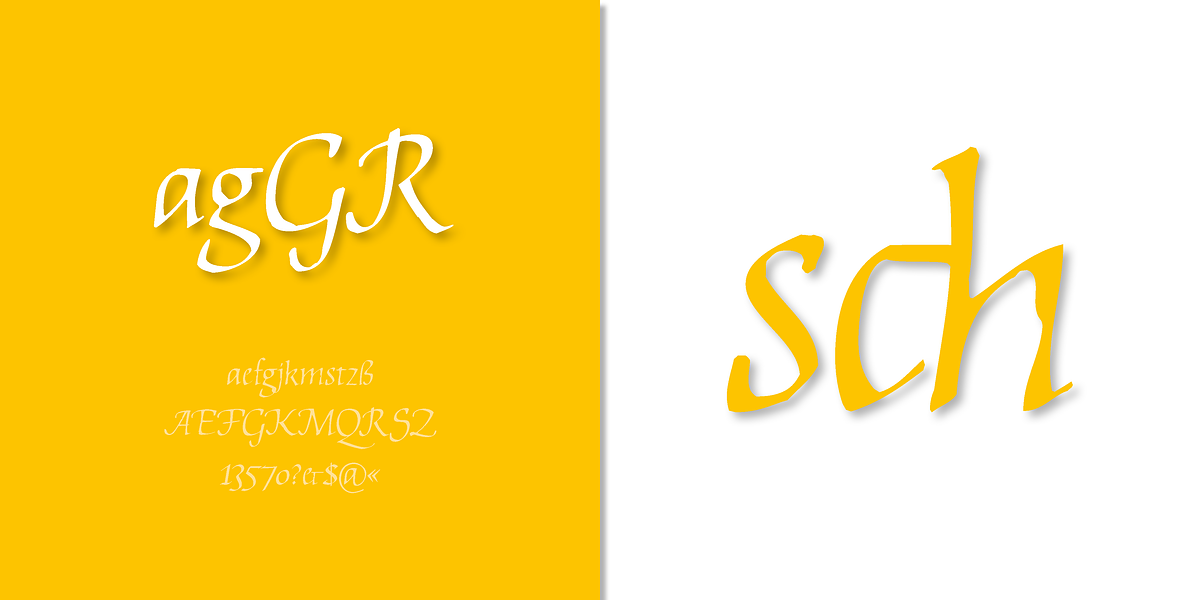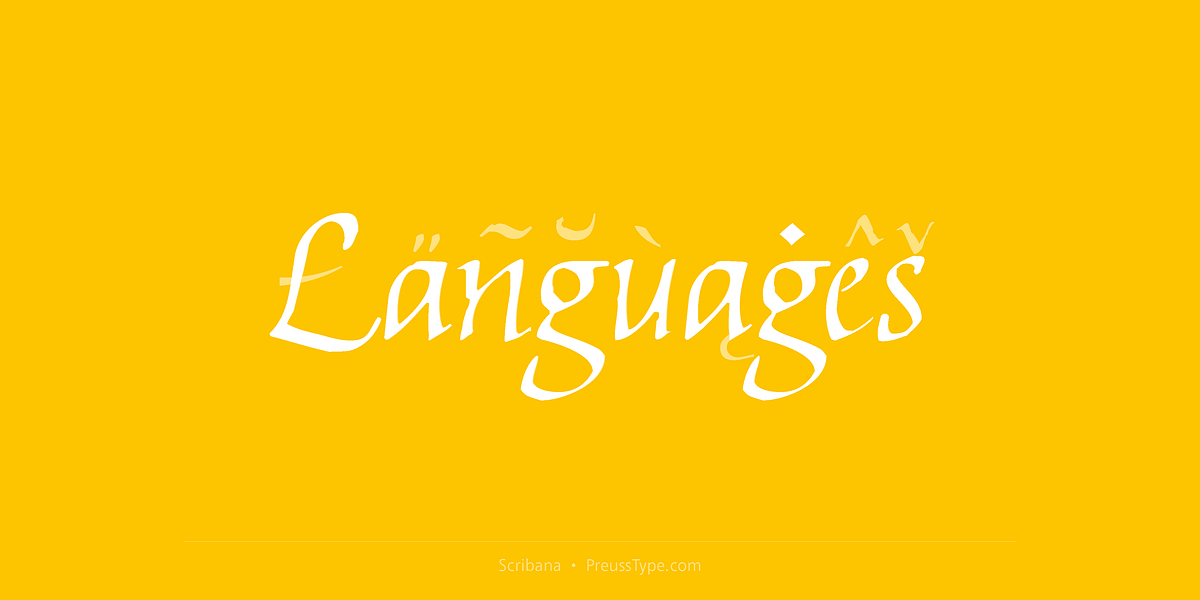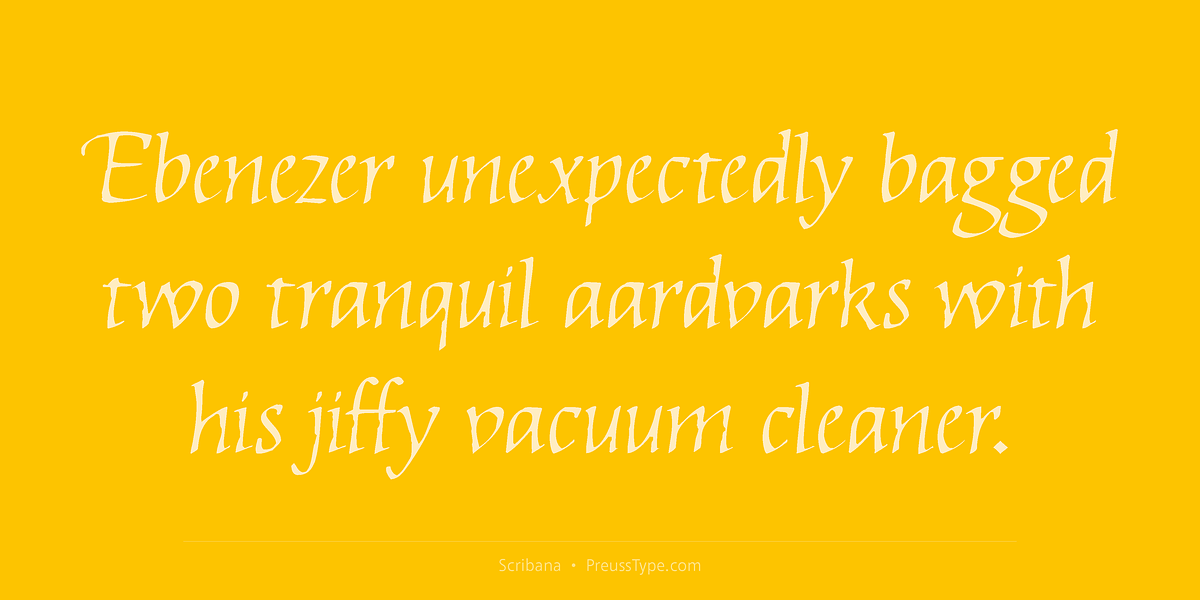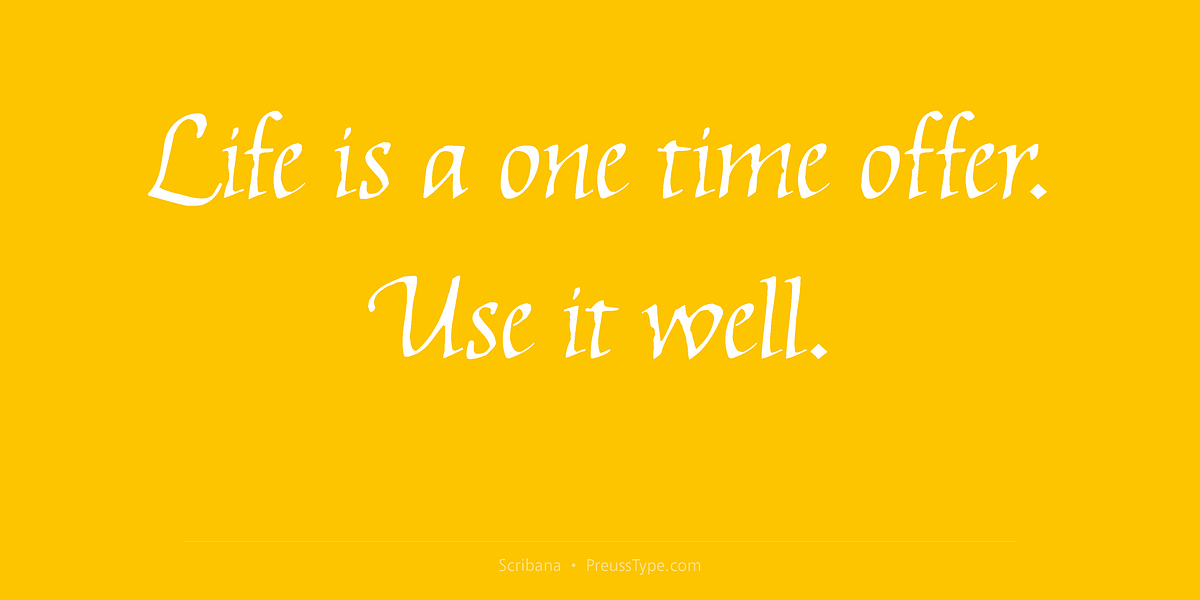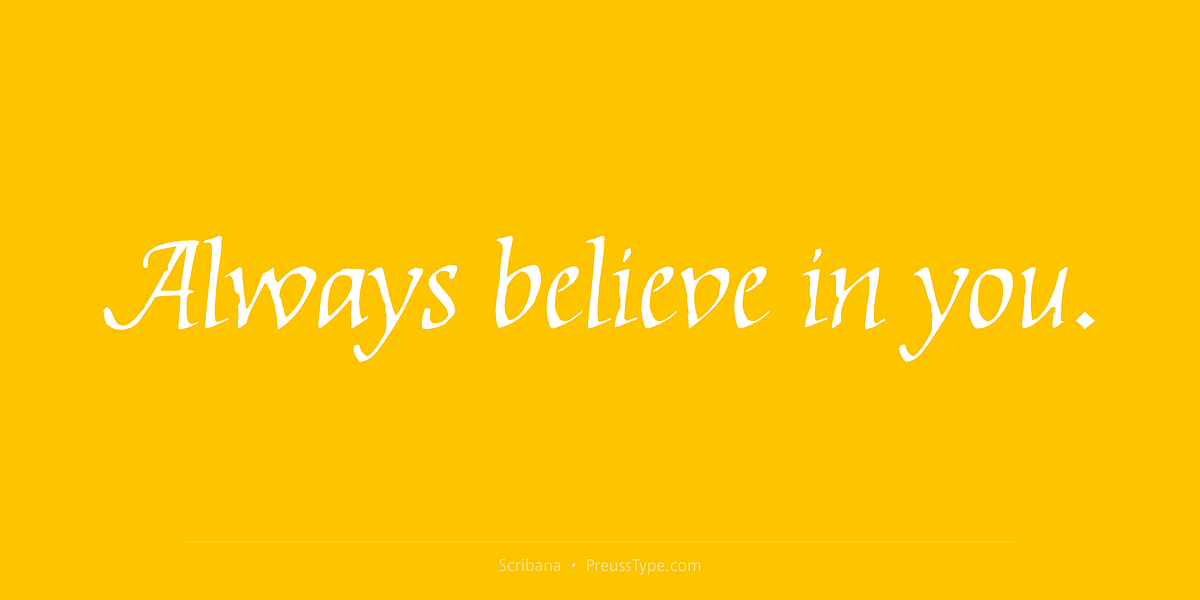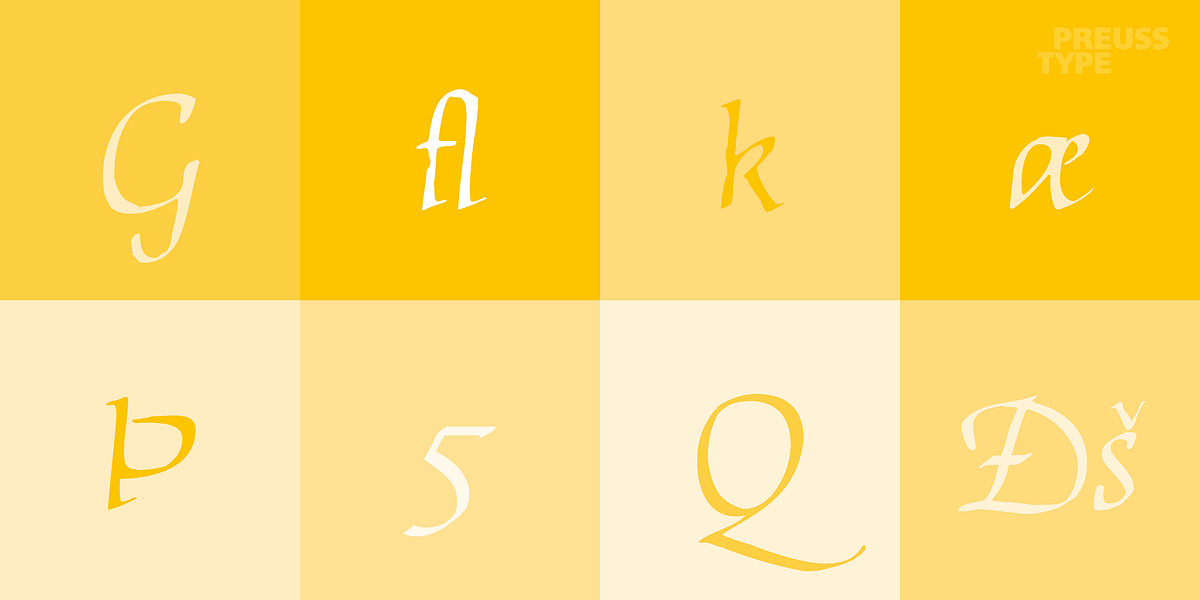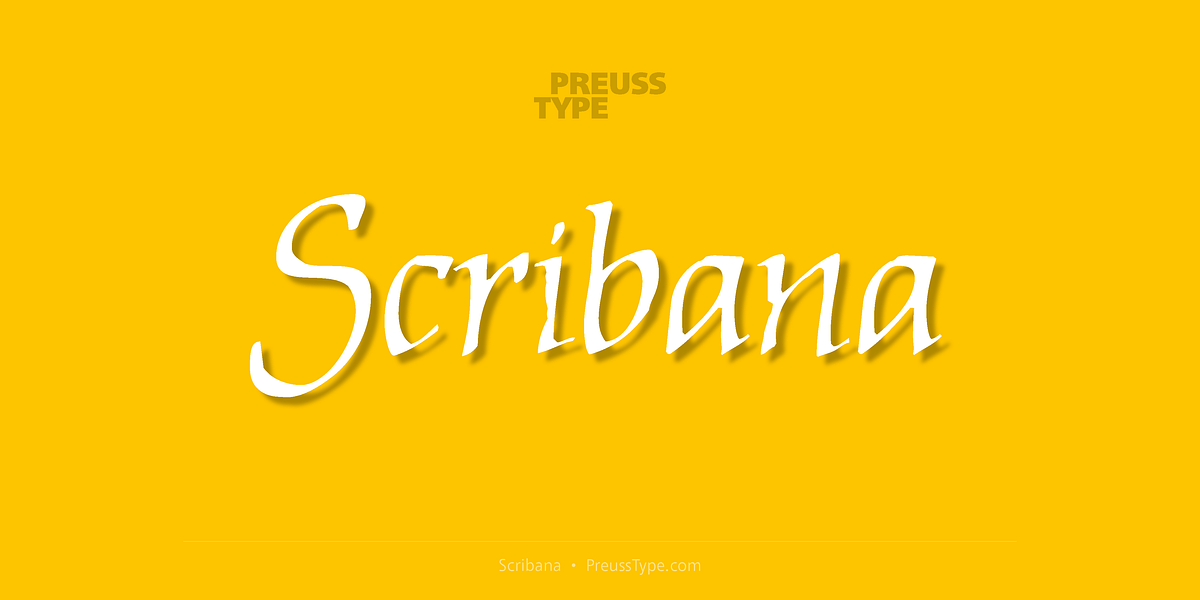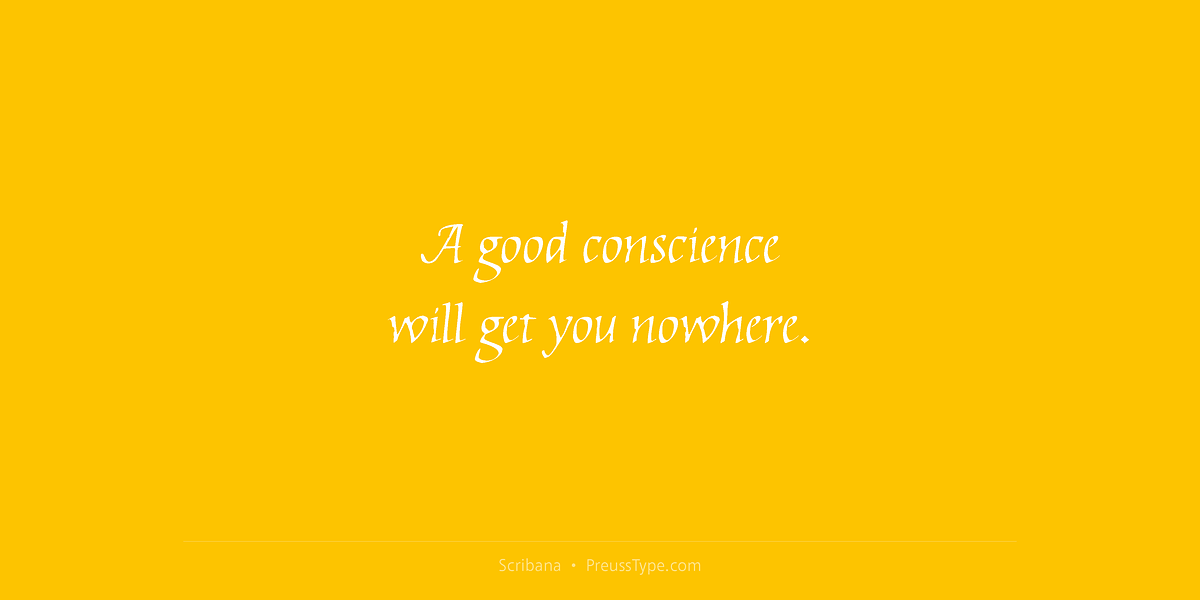
Scribana
Scribana is a script font inspired by the Italian Renaissance and designed to mimic broad pen calligraphy. It blends the characteristics of humanist bookhand and chancery cursive, resulting in full, well-articulated Roman letterforms with a moderate italic slant and condensed appearance. The design is based on a handwriting sample created by calligraphy artist Hildegard Korger.